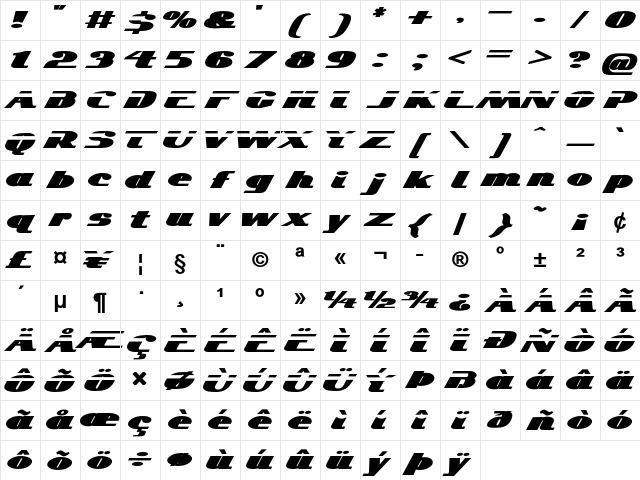
Pasitano Bold Free Font
Pasitano Bold
Design Context for Pasitano
Pasitano is a composed and adaptable typeface that performs quietly and consistently across a wide range of design contexts. Its bold stroke weight gives it real presence on the page.